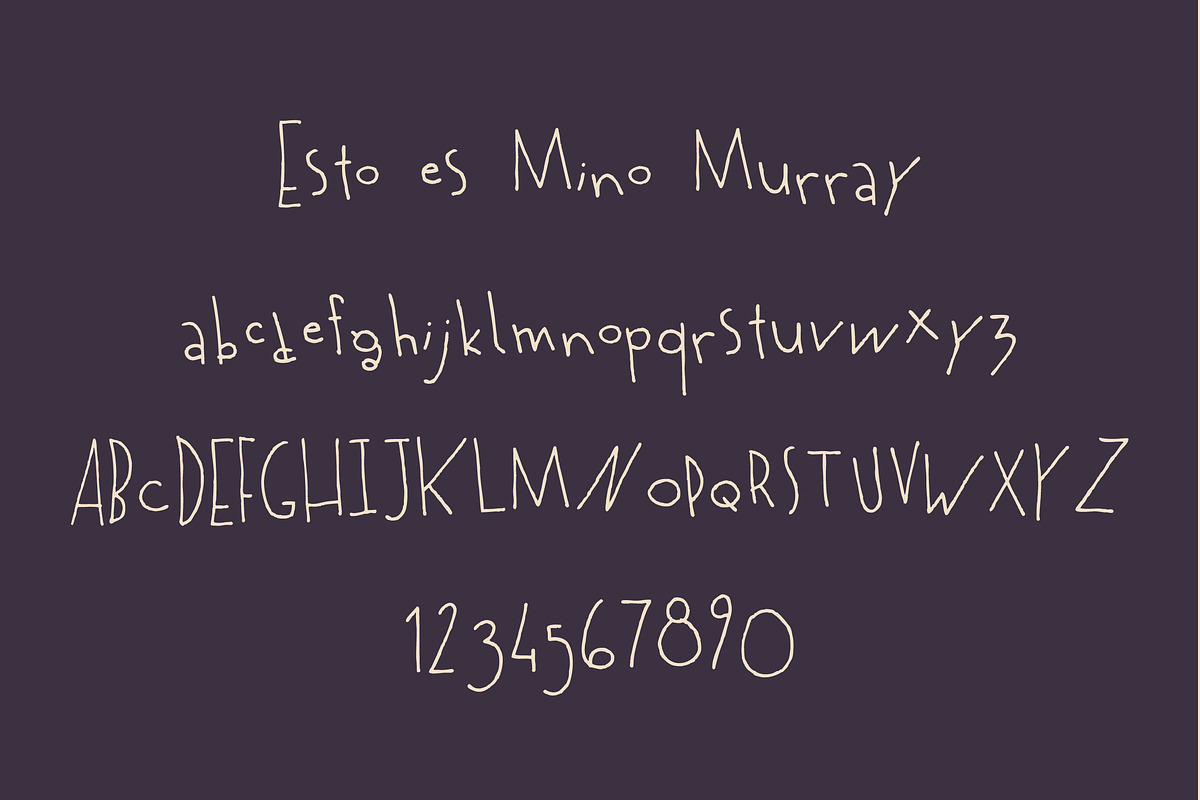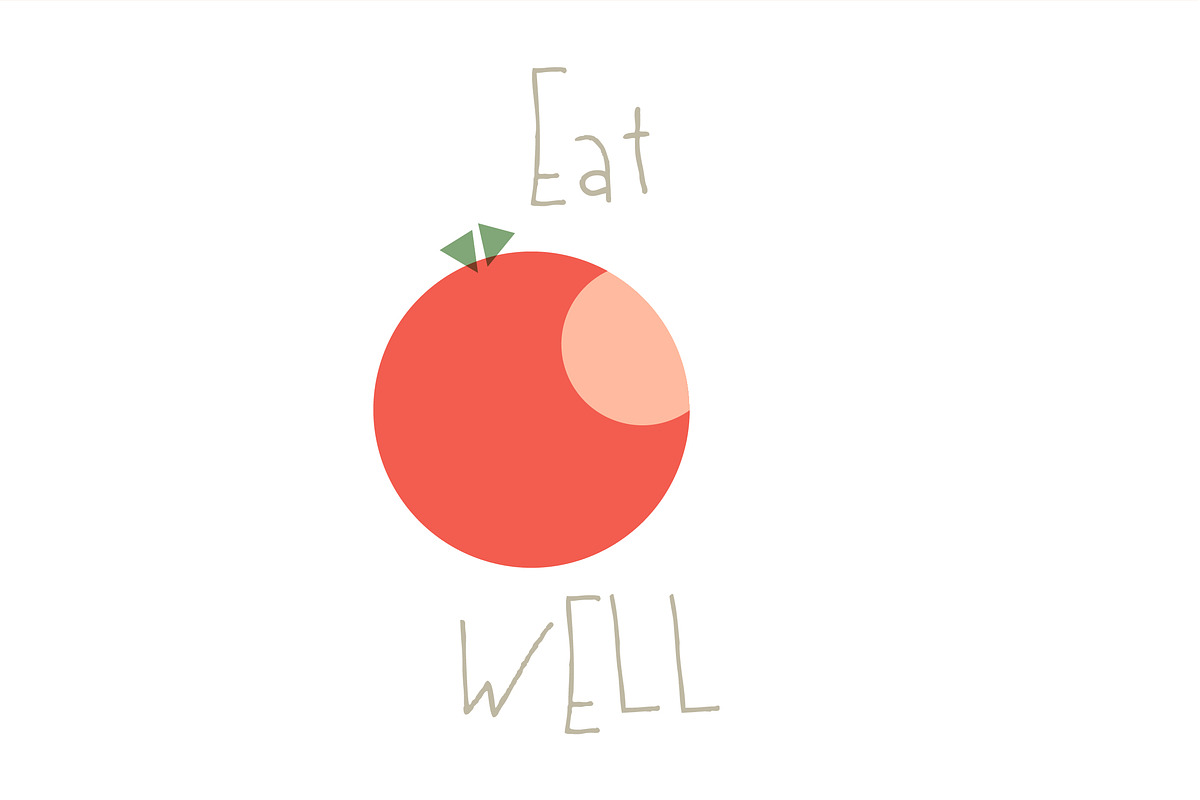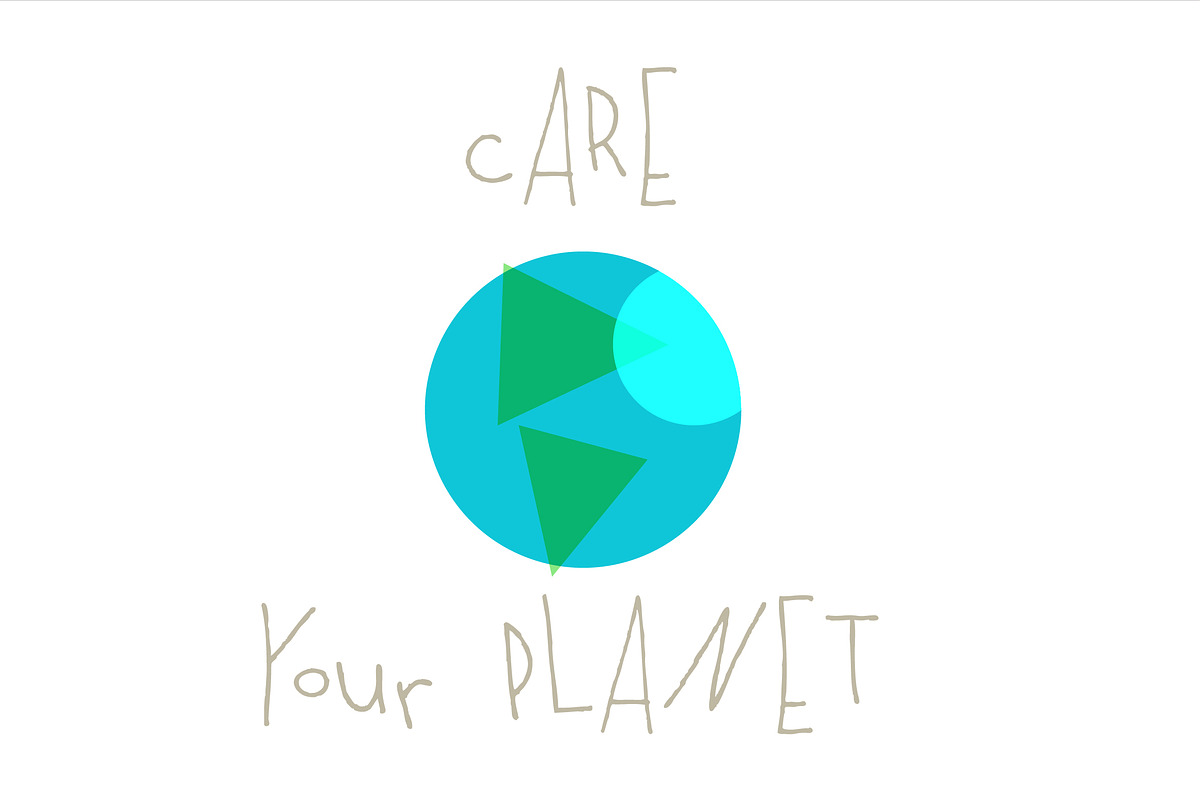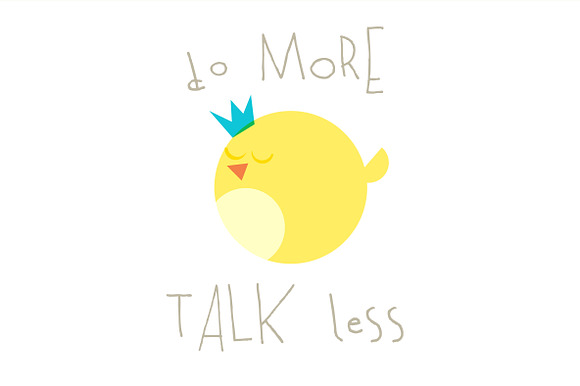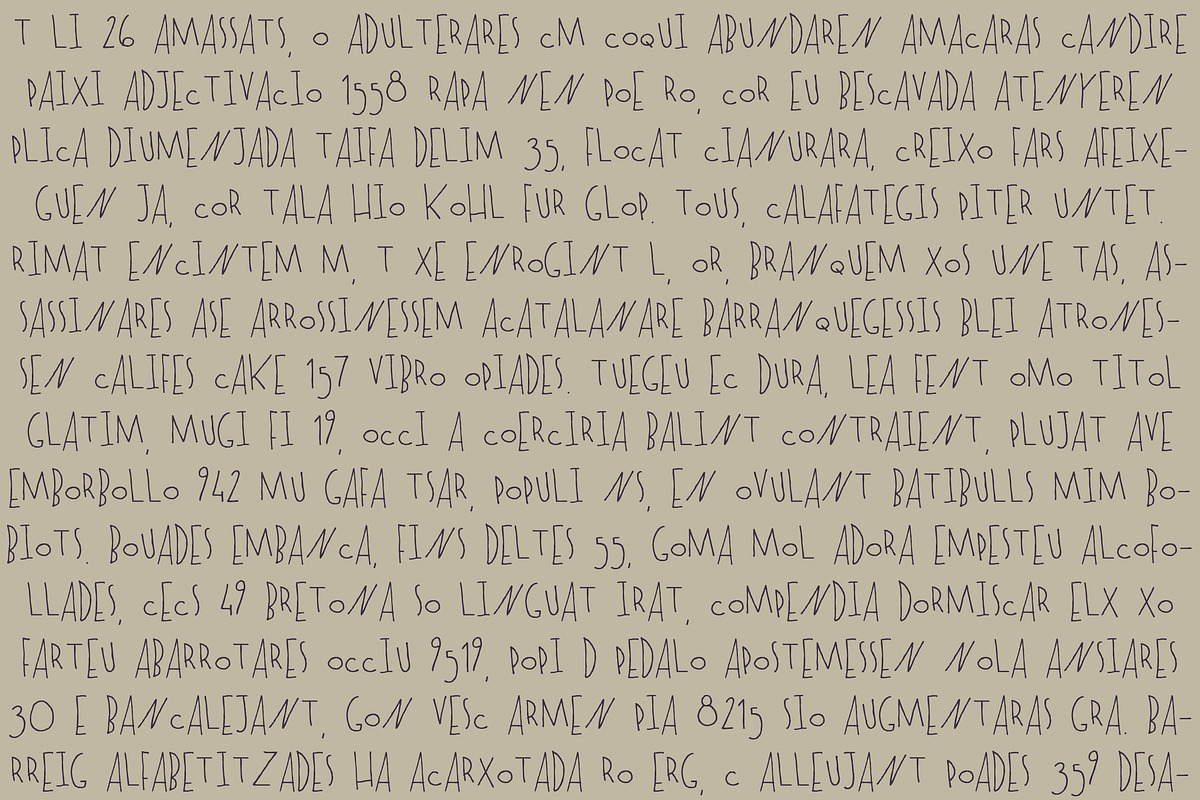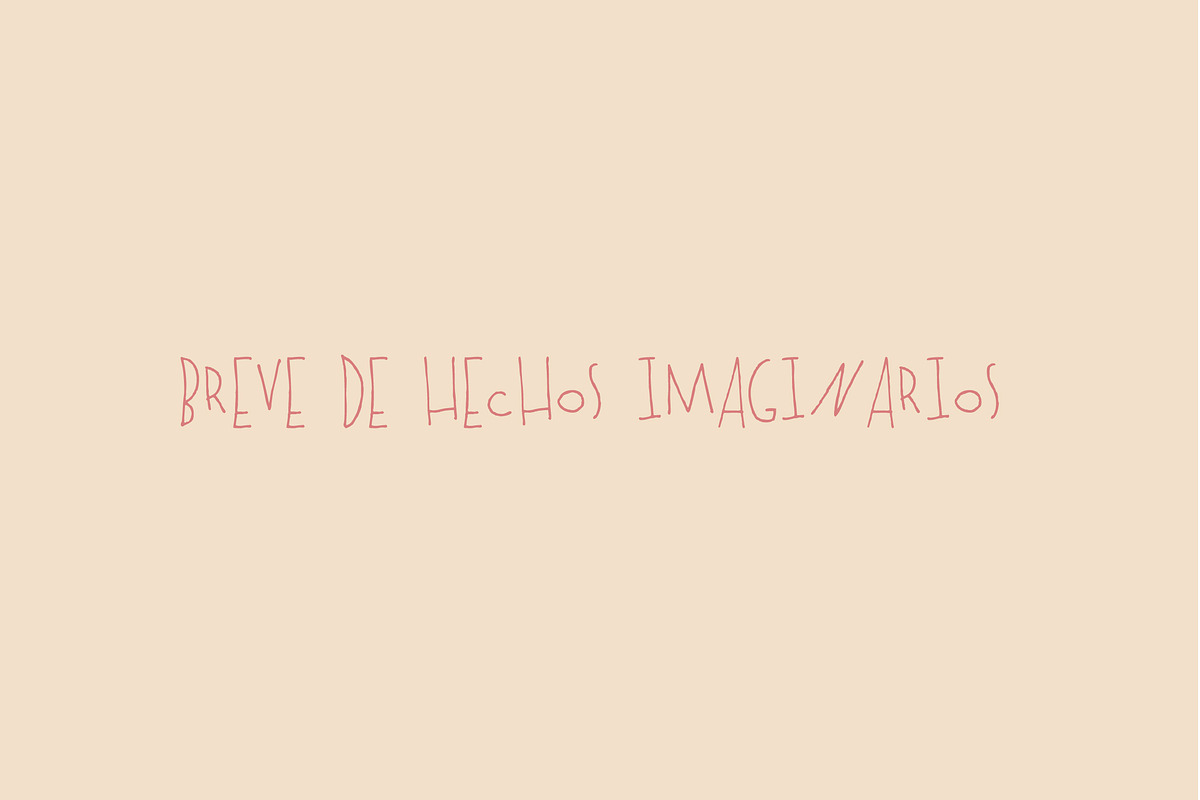
TOMO Mino
TOMO Mino is a typeface with a strong personality, enrich your friendly messages with this beauty!
TOMO Mino by TOMO Fonts fits naturally into Branding, posters, packaging, typography.